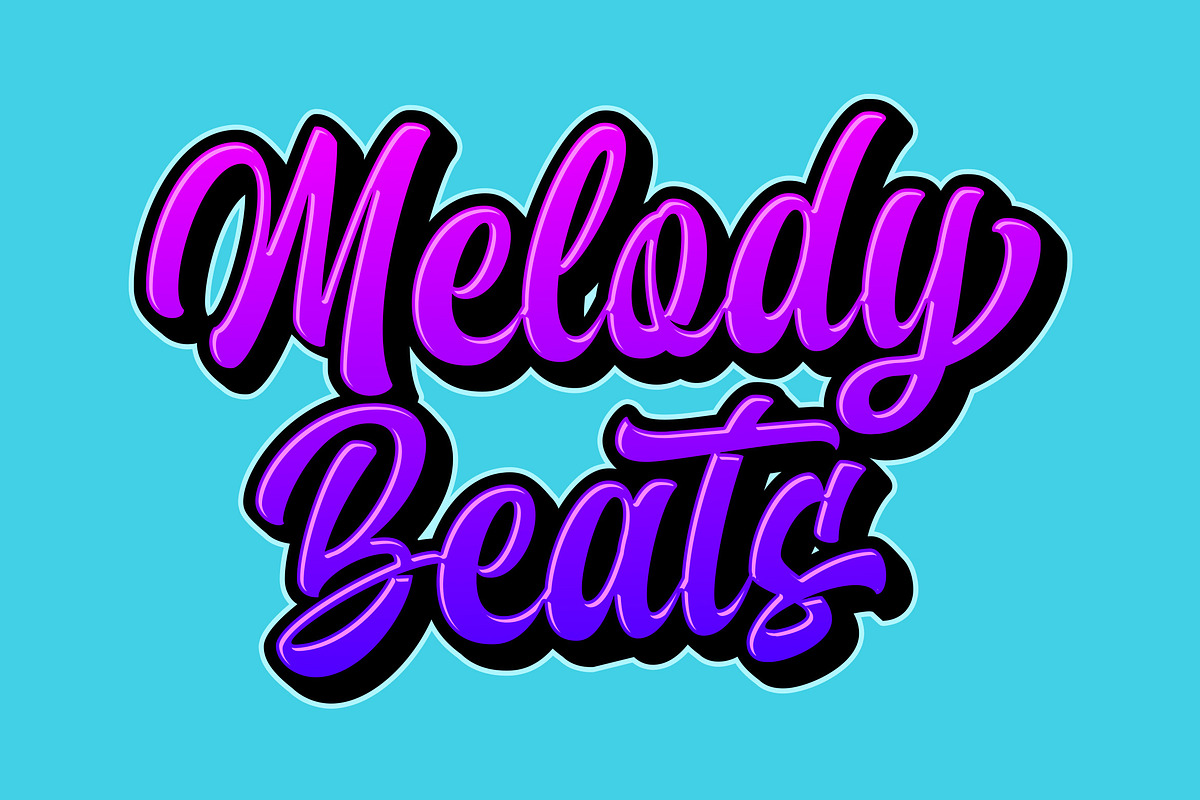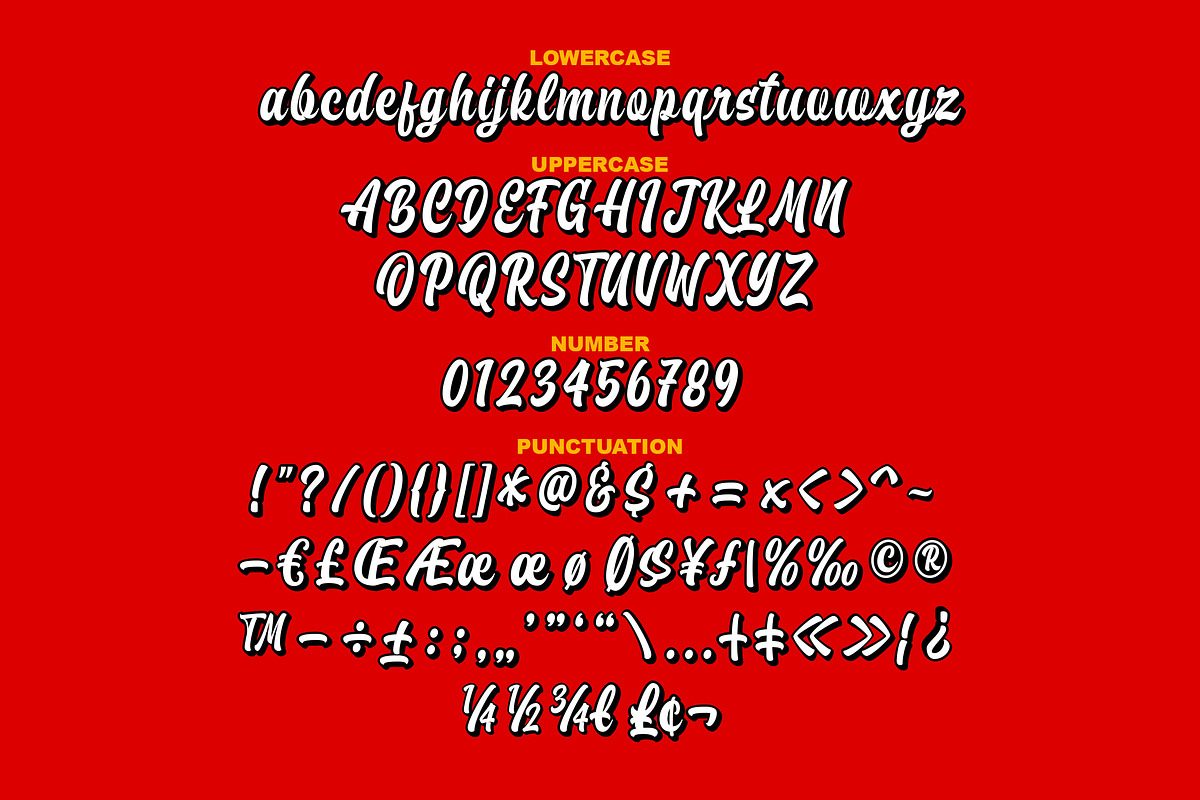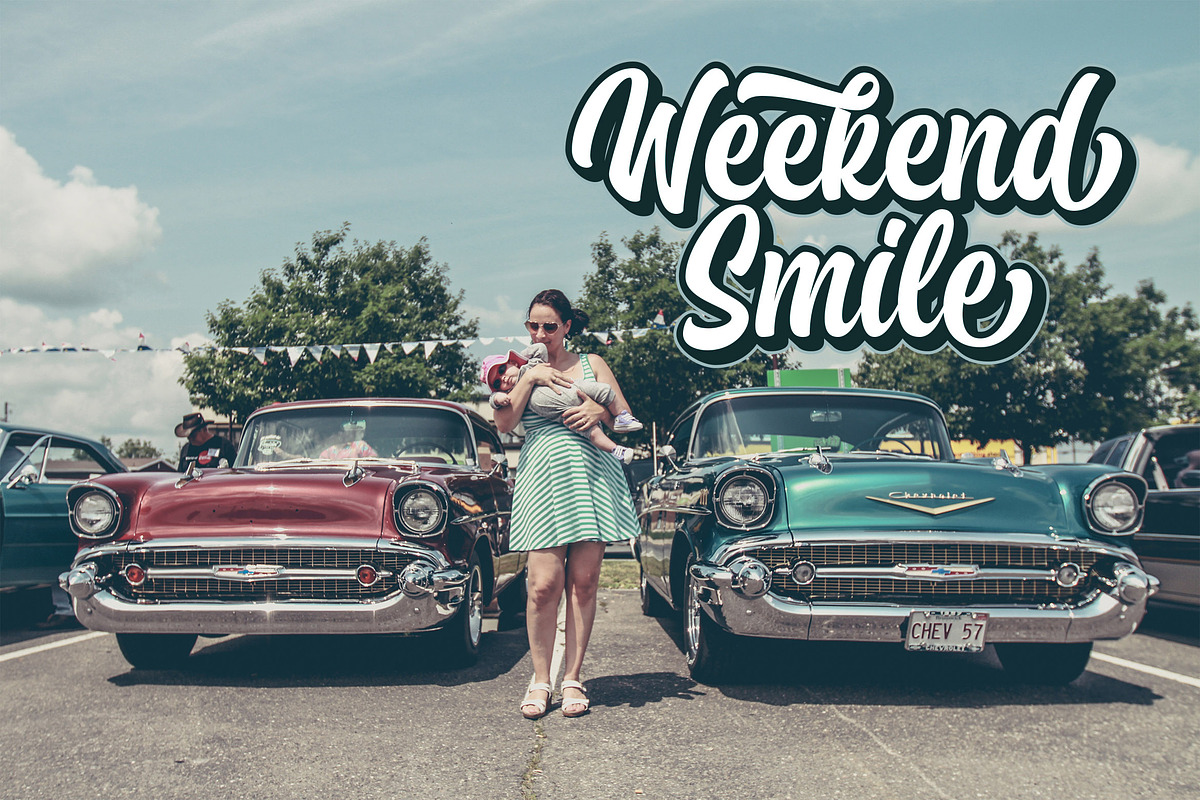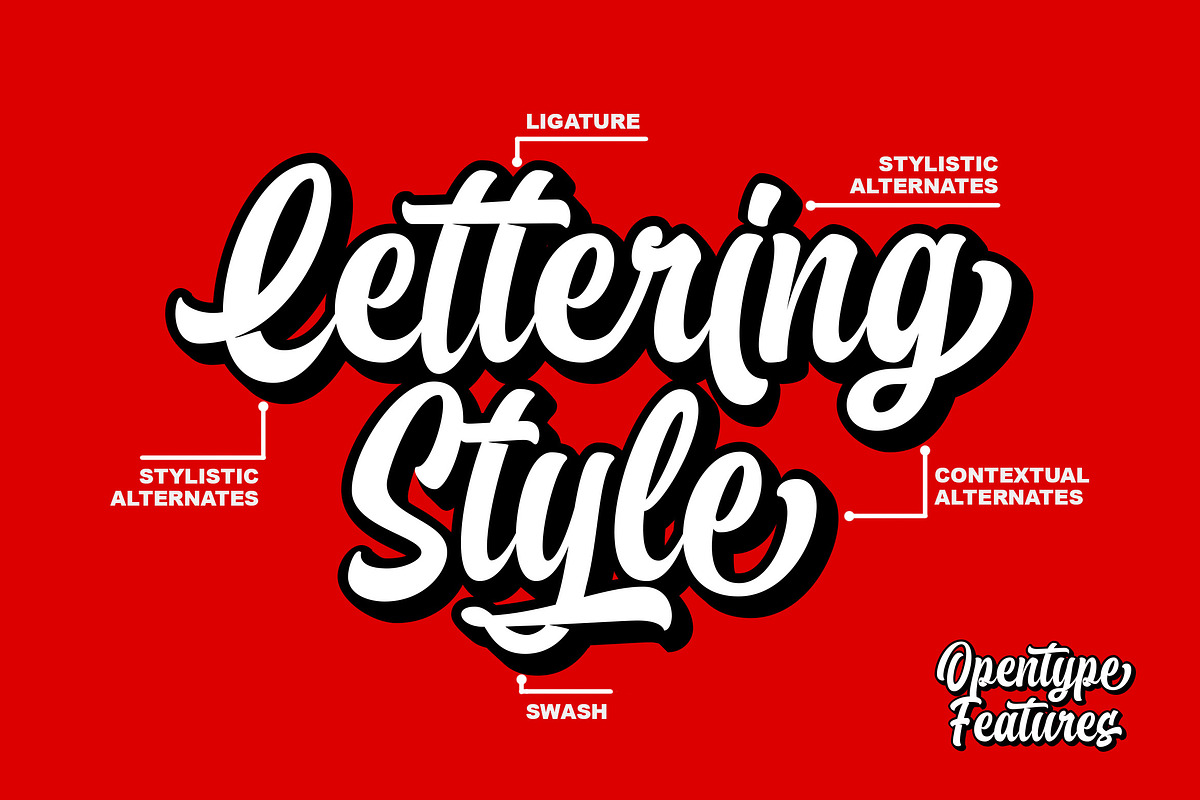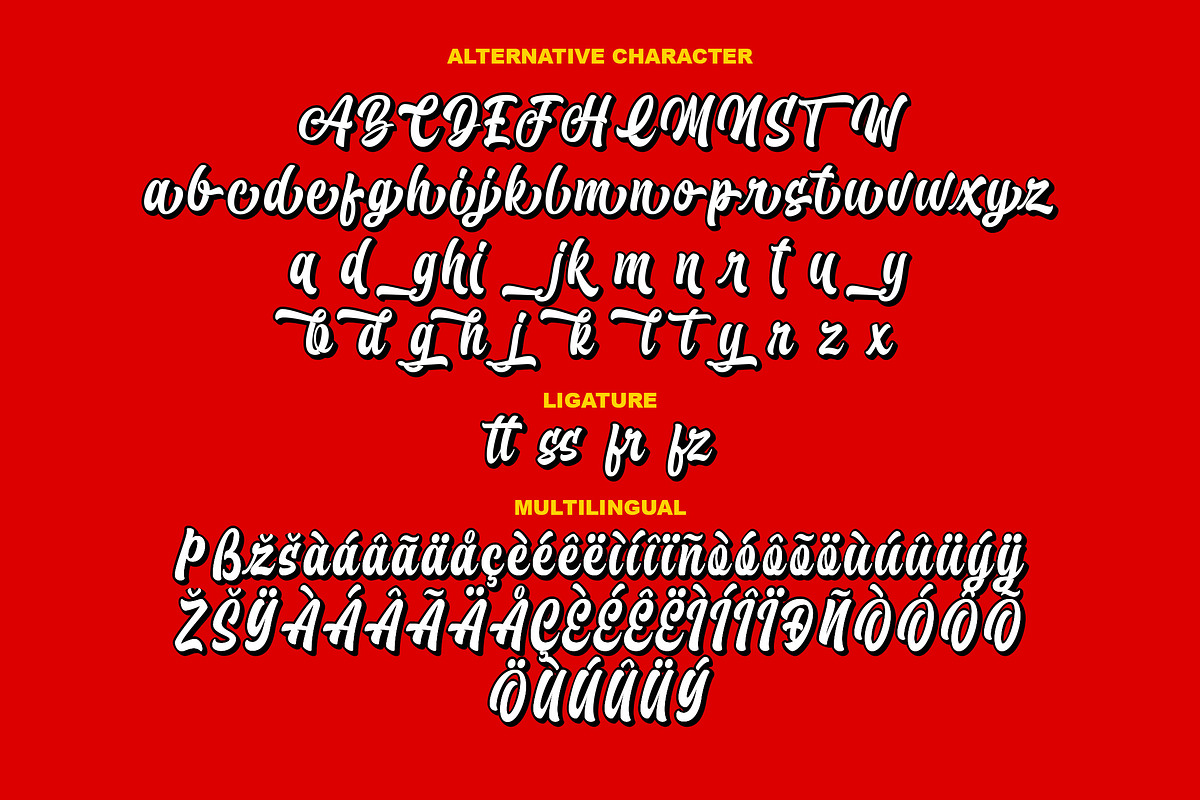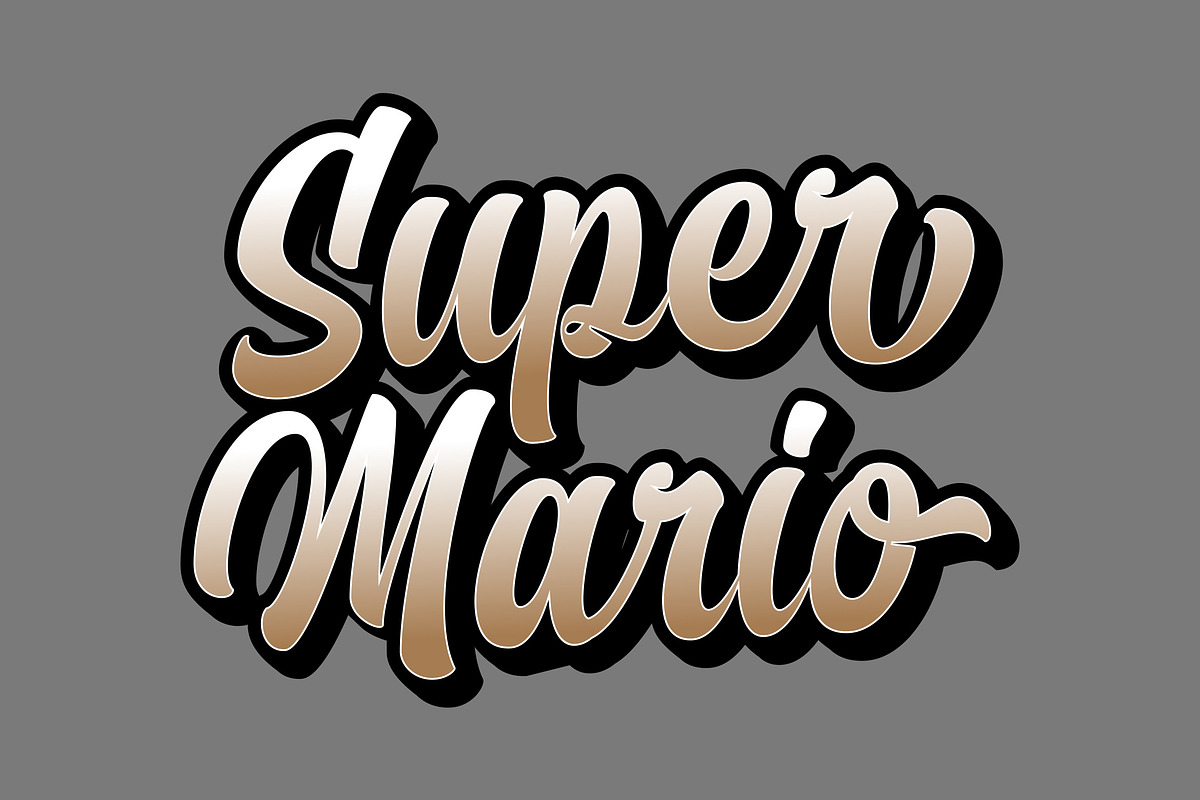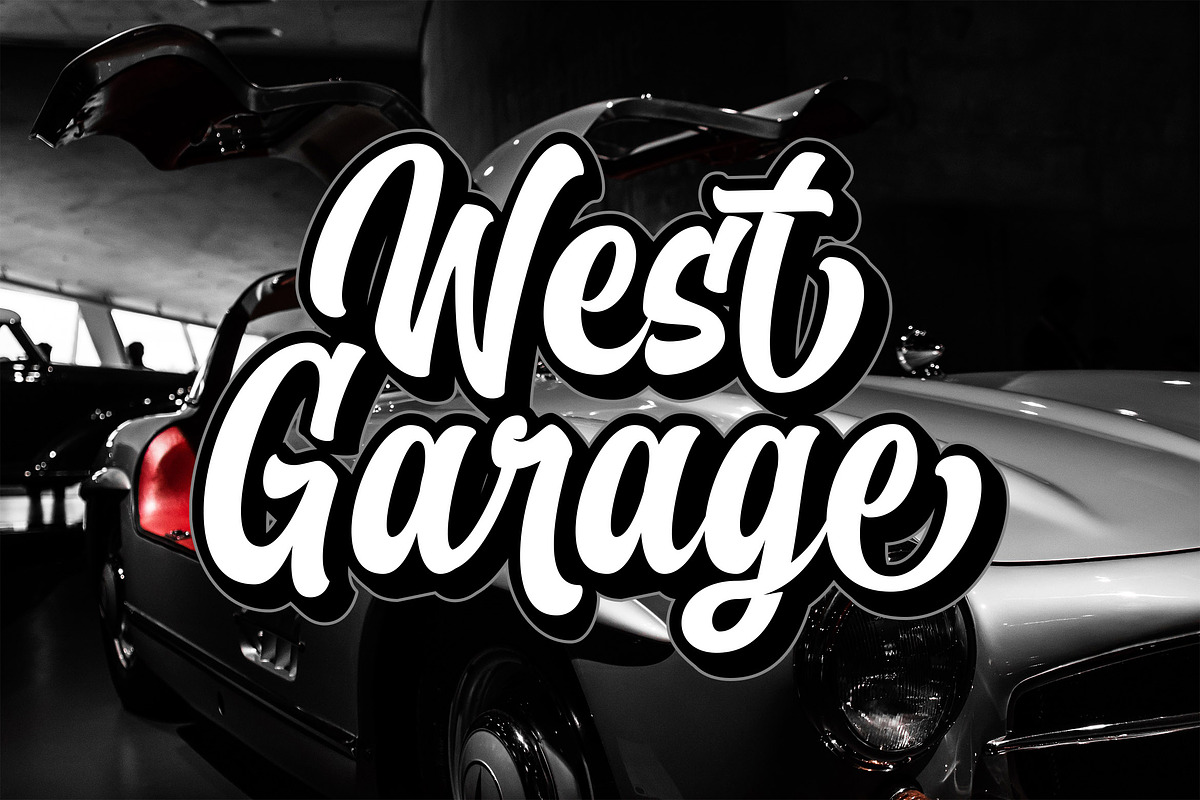
Brayles + Extrude
Introducing a new Layered bold script called Brayles font. Brayles inspired by handlettering, bold script logotype and kids font. Brayles came with open type features such stylistic alternates, contextual alternates, swash, ligatures good for logotype, poster, badge, book cover, tshirt design, packaging and any more.
MULTiLINGUAL ACCENT
ŽžŠŒšŸÀÁÂÃÄÅÆÇÈÉÊËÌÍÎÏÐÑÒÓÔÕÖØÙÚÛÜÝßàáâãäåæçèéêëìíîïðñòóôõöøùúûüýÿ